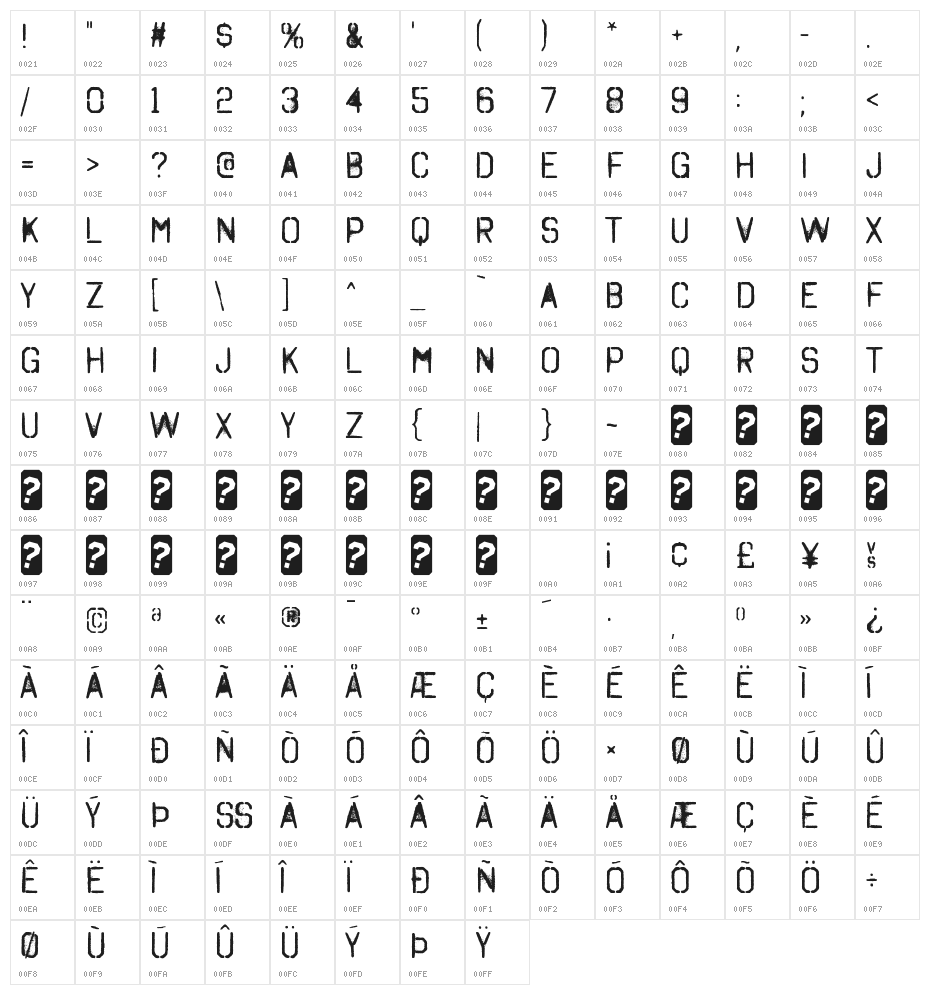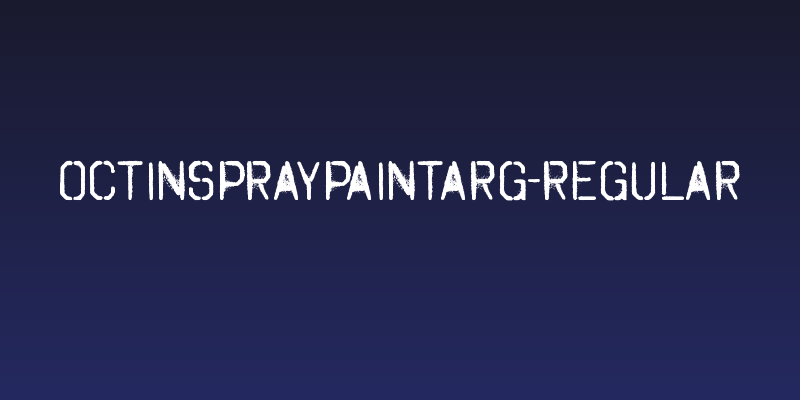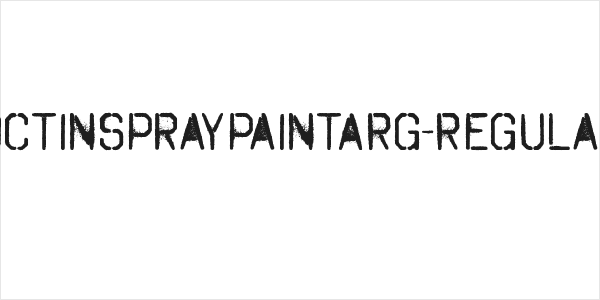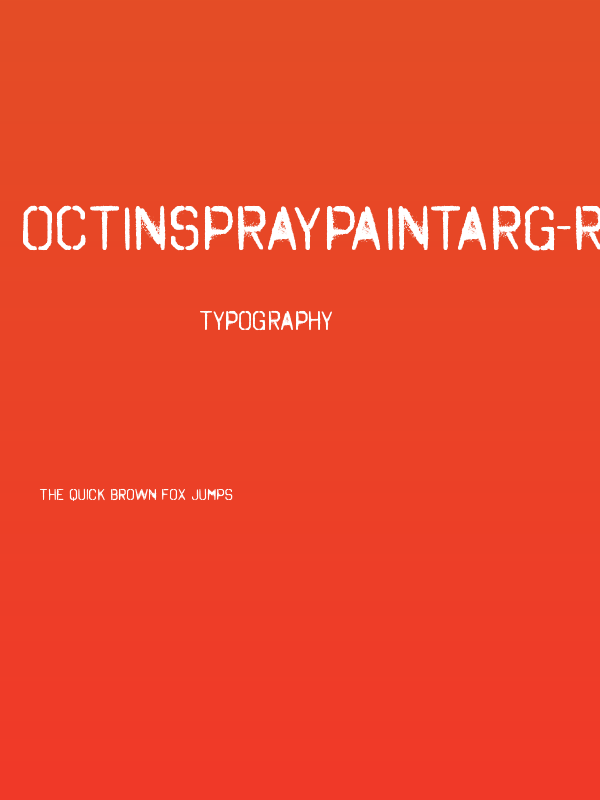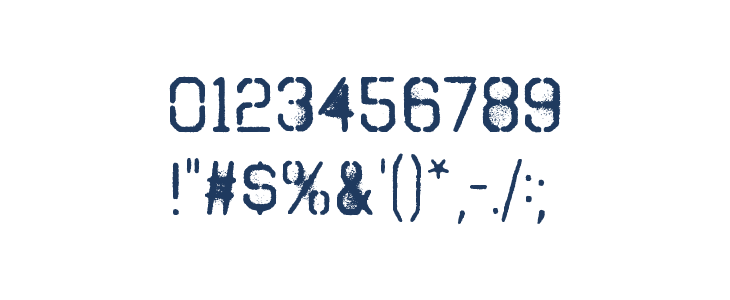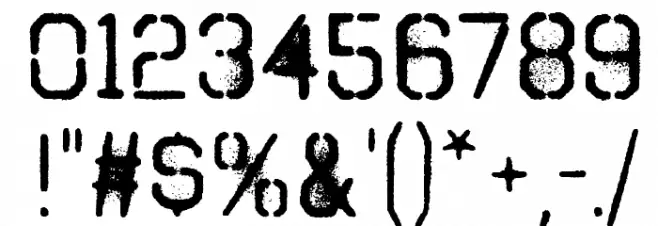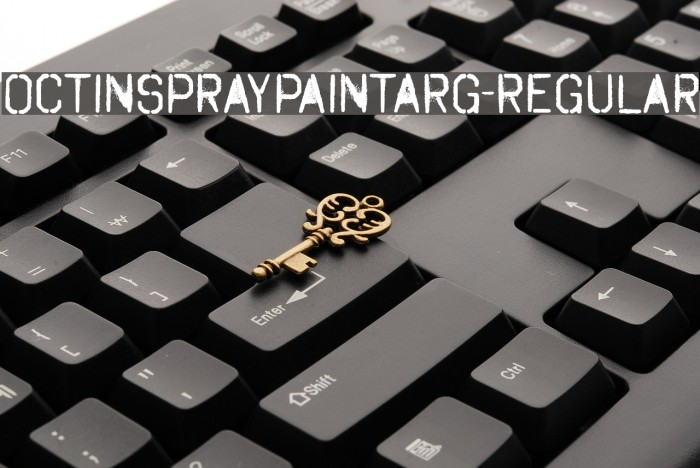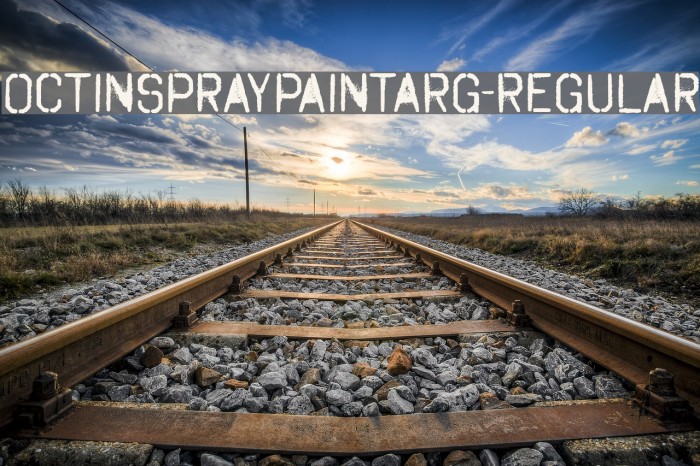
OctinSpraypaintARg-Regular Font
OctinSpraypaintARg-Regular Description
This font features a rugged, stencil-like appearance reminiscent of spray-painted lettering. The characters are bold and display a distressed texture, giving them an urban, industrial feel. The uppercase letters are uniform in height, while the numbers and special characters maintain the same gritty aesthetic. The font's design is perfect for projects that require a raw, edgy look, such as street art themes or bold graphic designs. Its unique style captures attention and conveys a sense of authenticity and rebellion.
| Overall Style | Urban, Industrial, Edgy |
| Proposed Projects | Ideal for street art themes, urban branding, posters, and edgy graphic designs. |